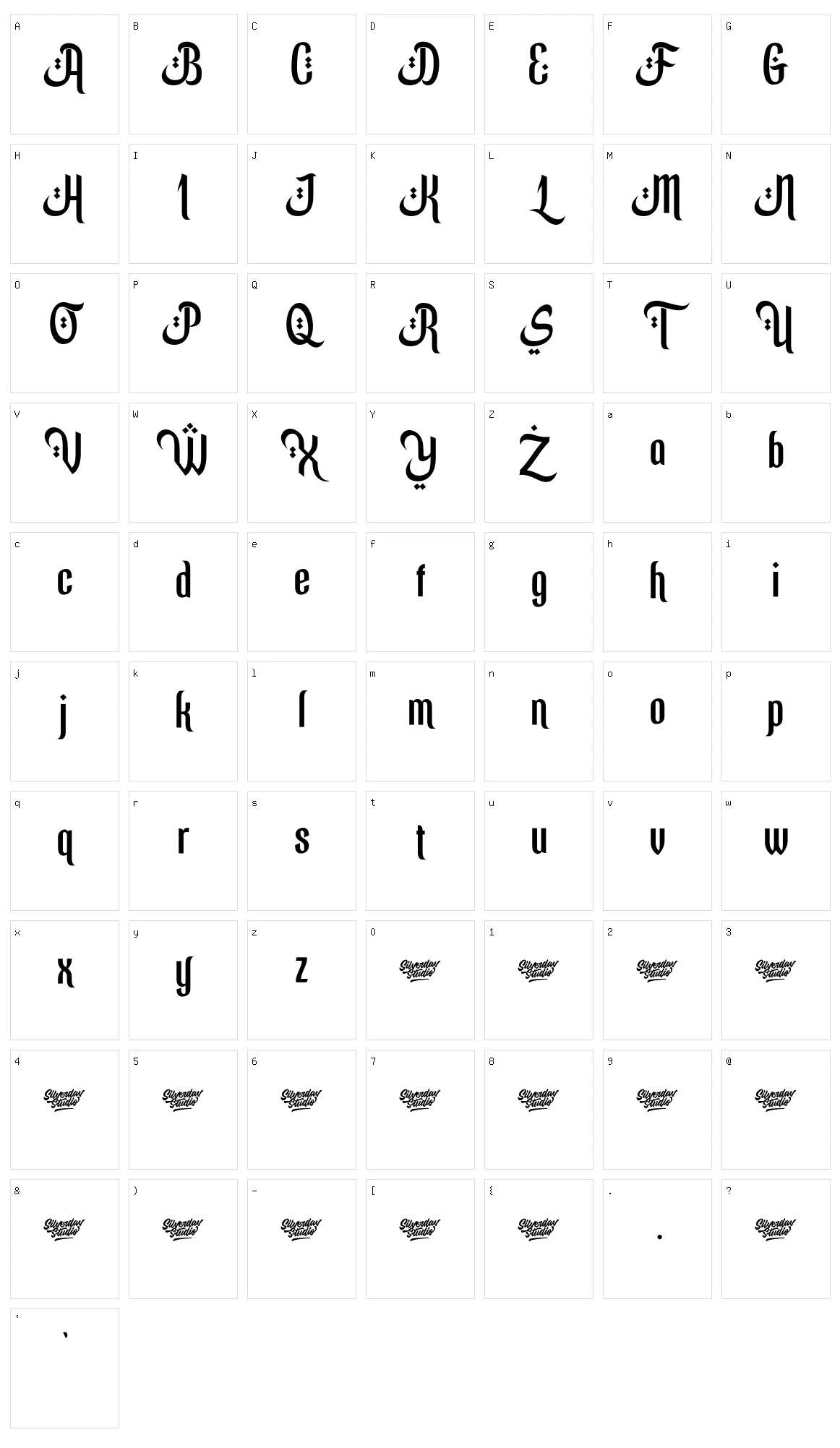
The free font Ramadhan Mubarok is carefully designed by Silverdav Studio, showcasing a thoughtful balance of creativity and usability and falls under the Arabic font style. When you download the ZIP file, it contains only 348.84 KB of font files, making it lightweight and quick to download. Please review the license details below to understand permitted usage and distribution rights. If license information is not available, we recommend using this font for personal projects only or contacting the author directly for commercial usage permissions.